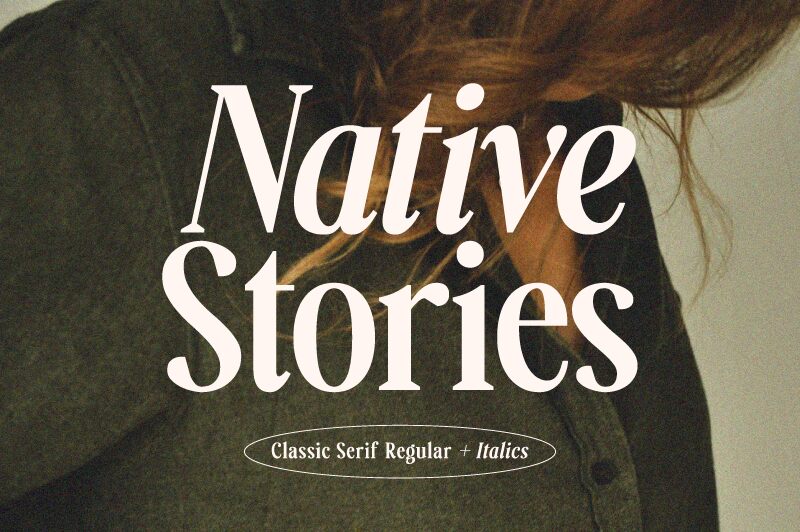
Native Stories, designed by Prioritype Co, is a captivating serif font with a condensed width. Its elegant and refined design adds a touch of sophistication to any project.
Perfect for magazine layouts, fashion editorials, and luxury branding, Native Stories exudes confidence and class. Its unique characteristics make it an ideal choice for book covers, elegant wedding invitations, and high-end packaging designs. With its versatility and timeless appeal, Native Stories effortlessly elevates any creative endeavor, ensuring a visually compelling experience for your audience.